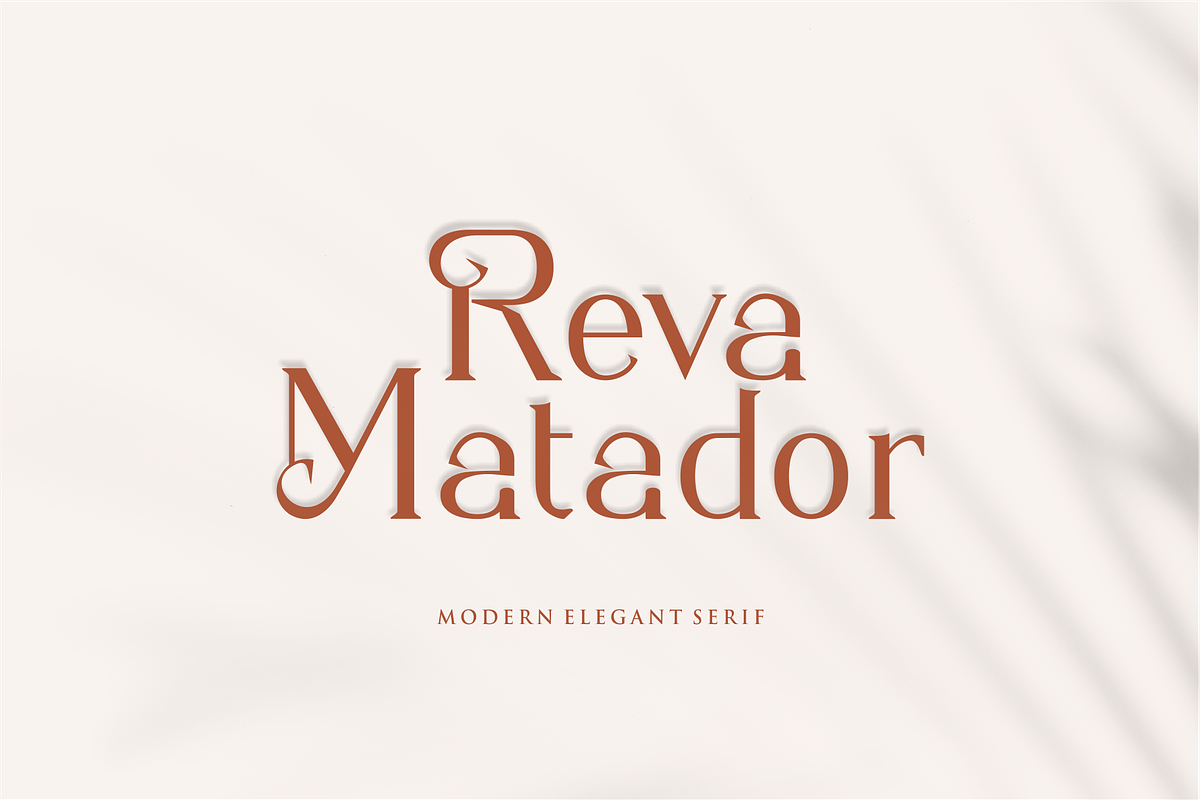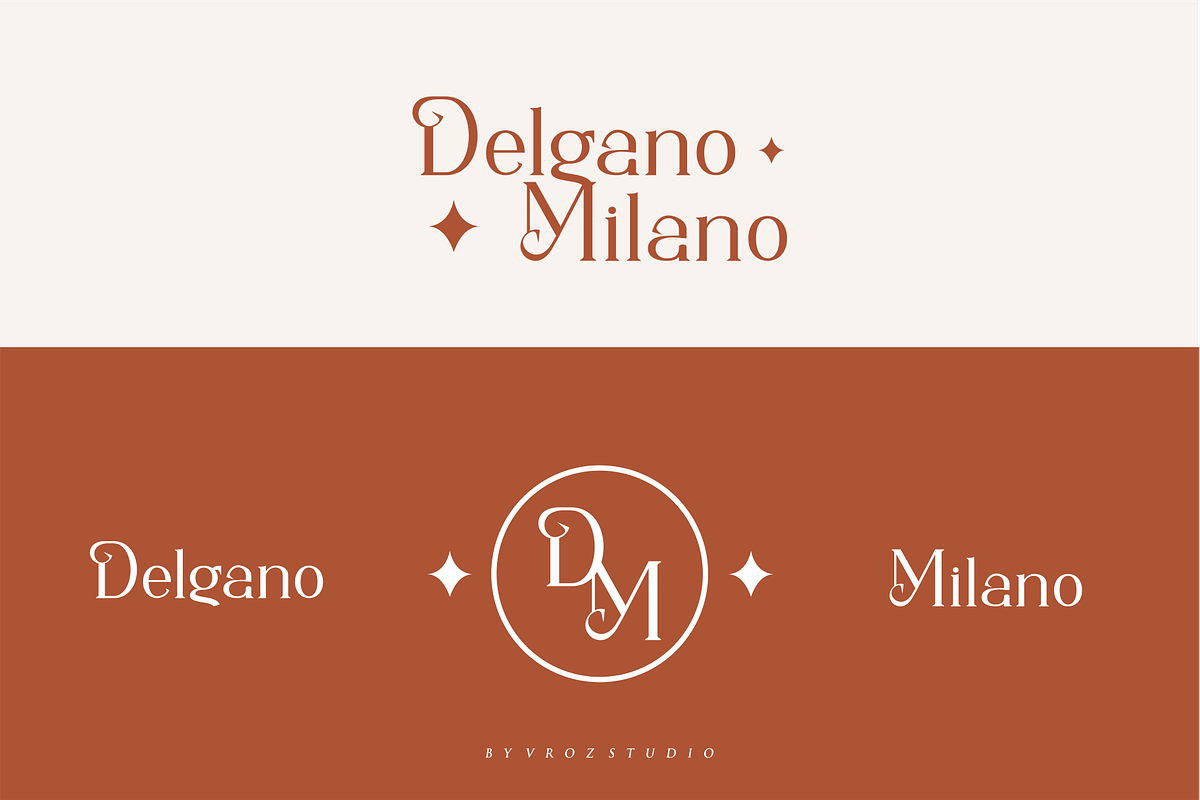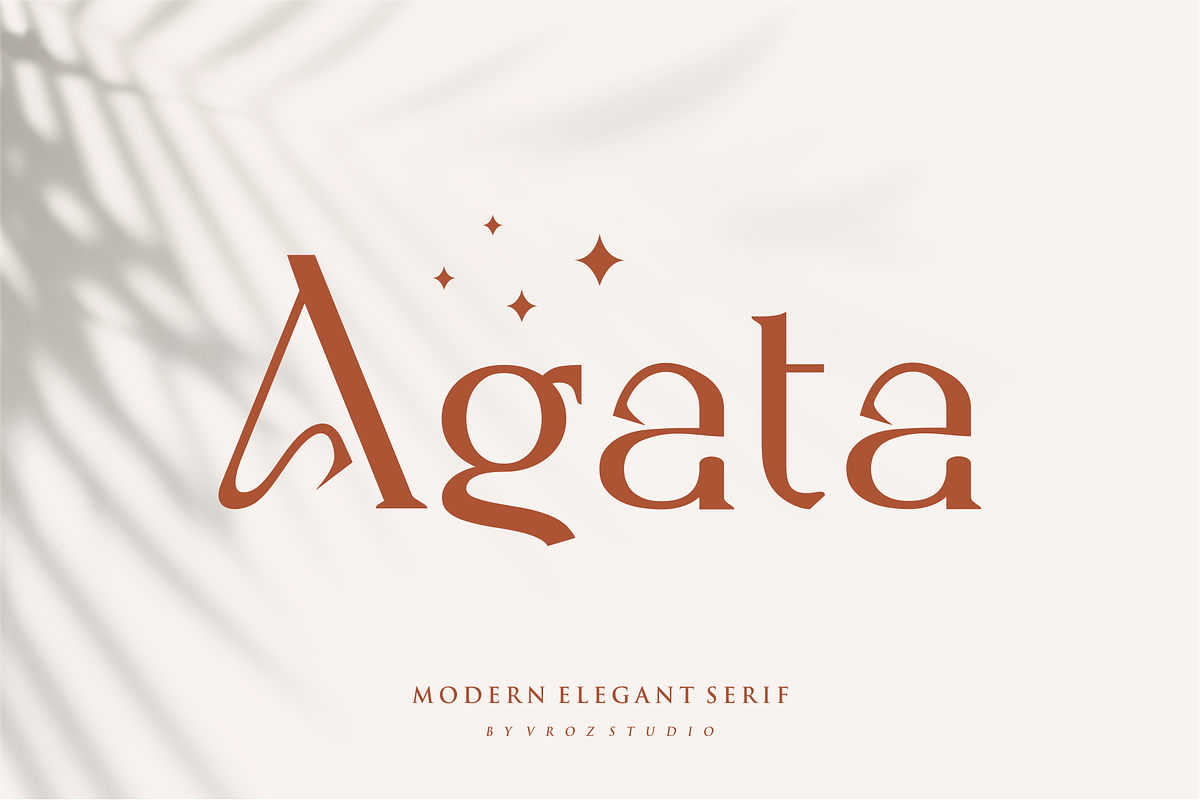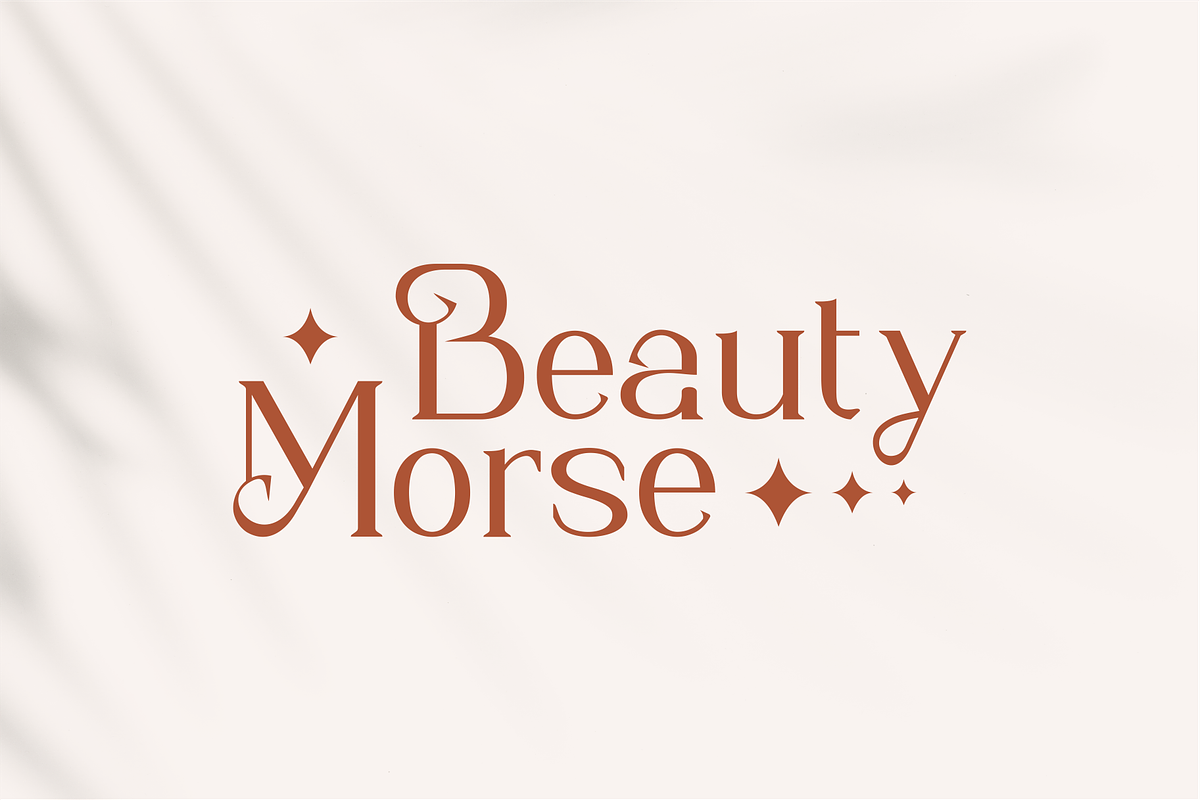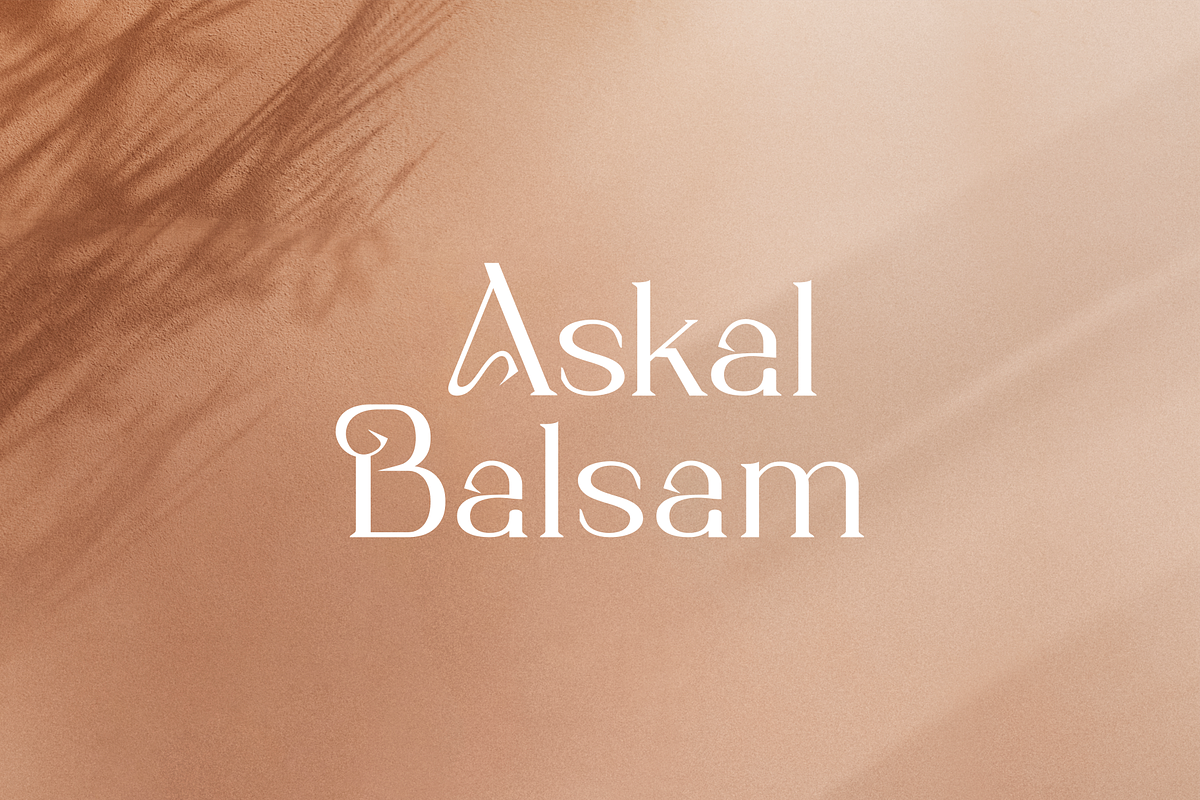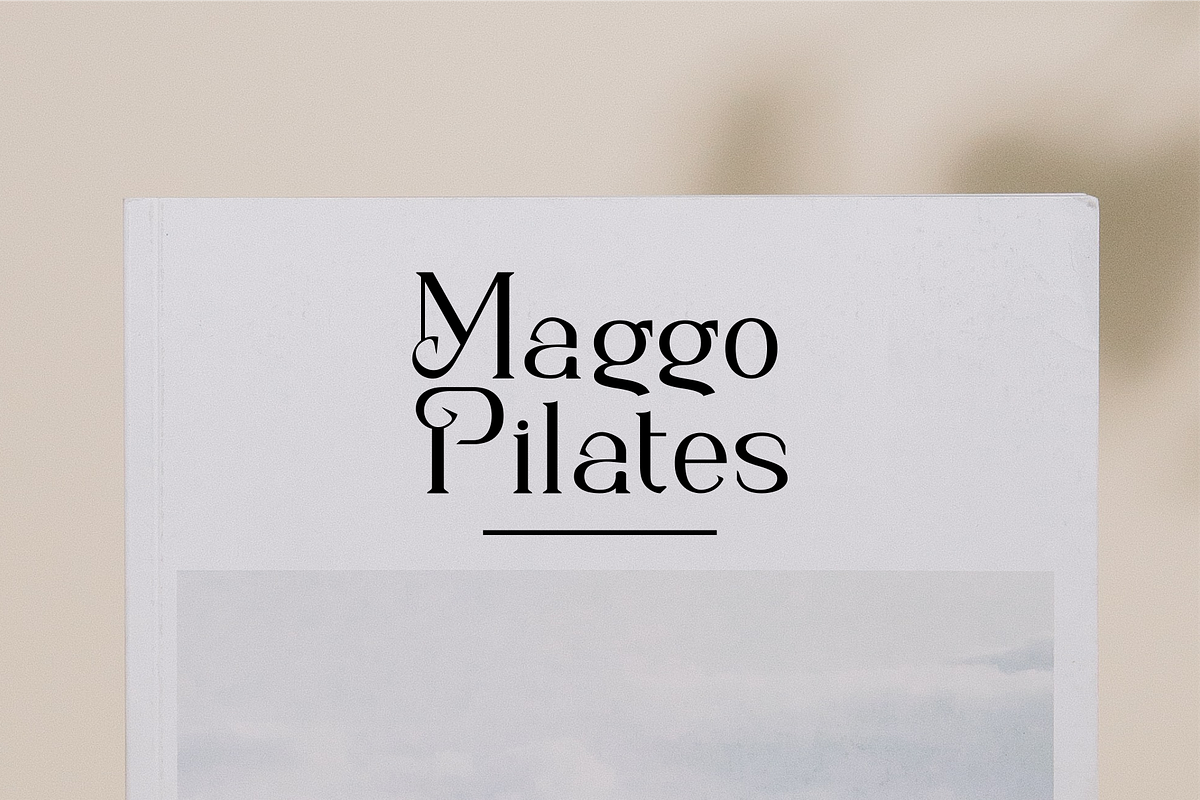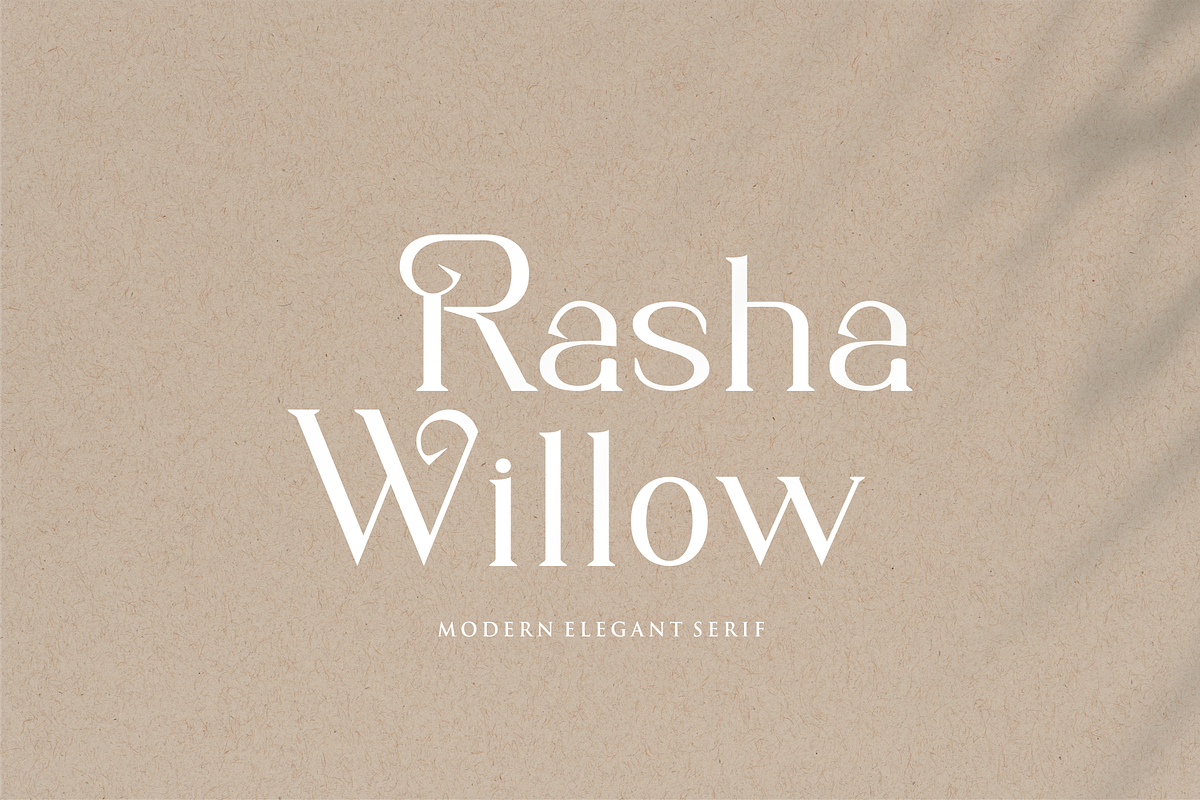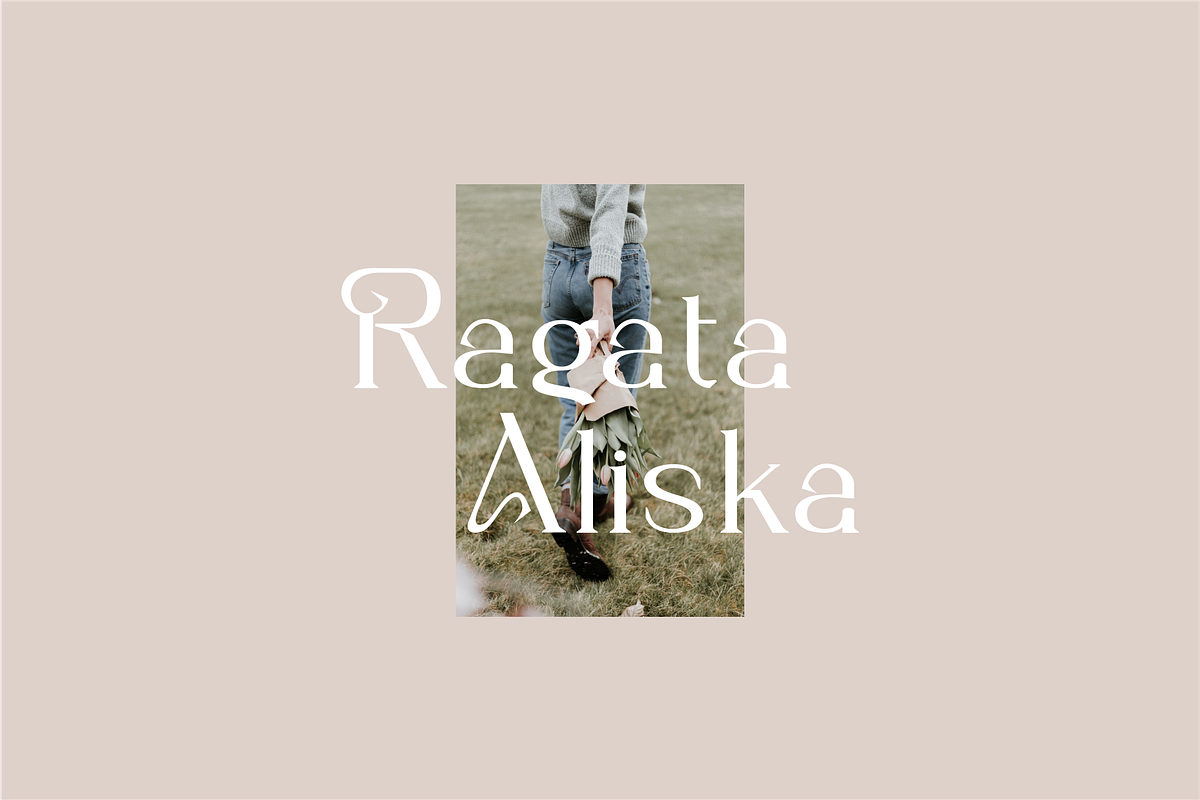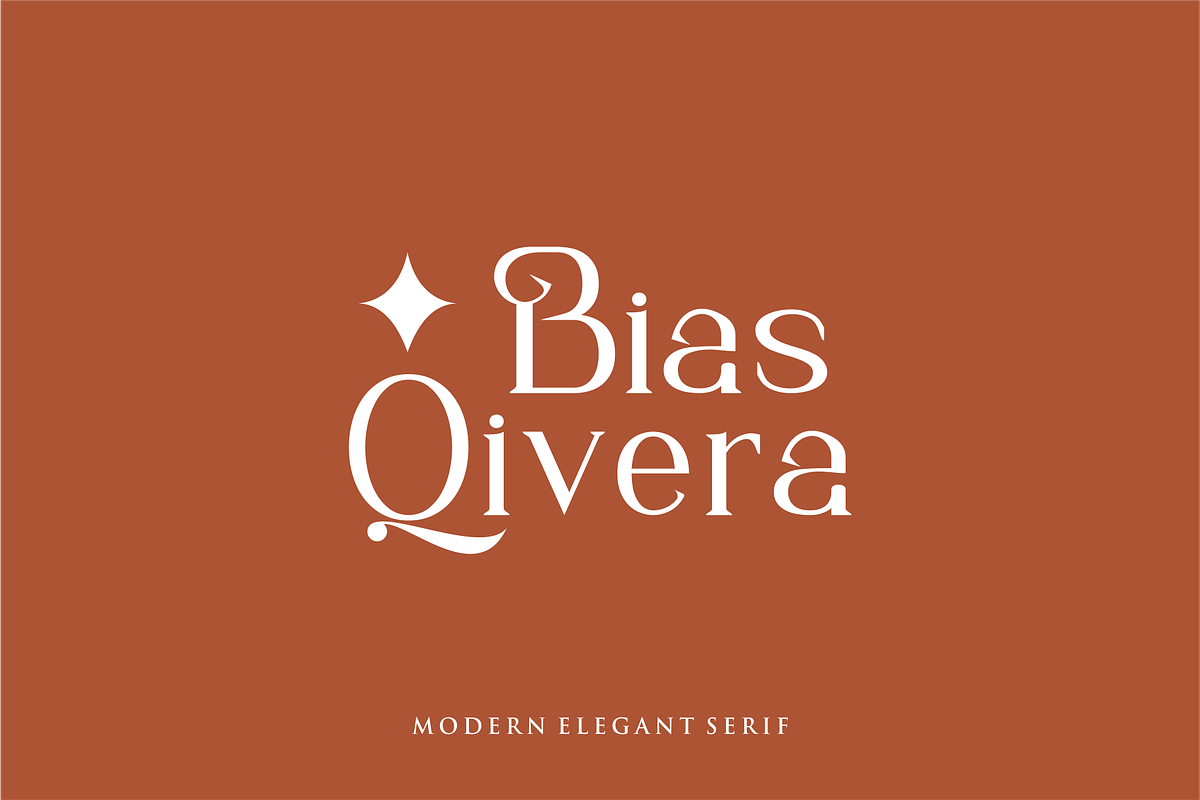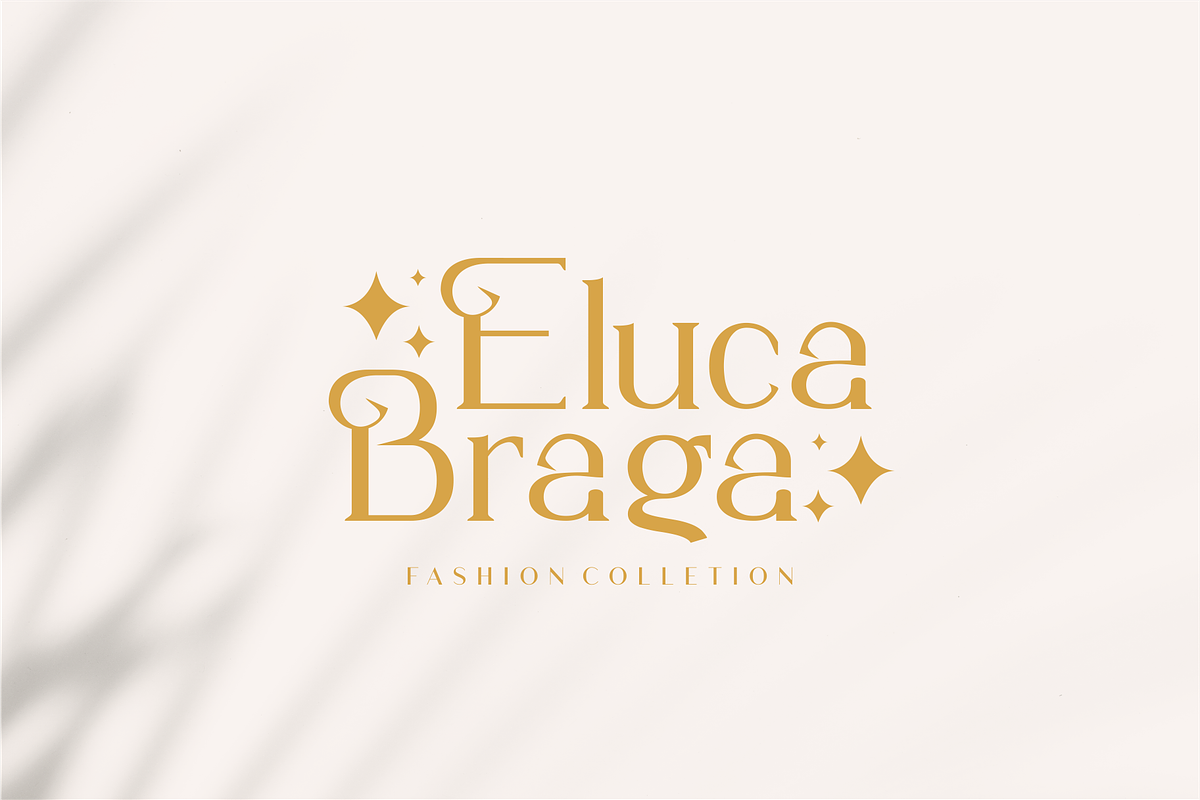
Agata - Modern Elegant Serif
Agata - Modern Elegant Serif Font will perfect for many project: fashion, magazines, logo, branding, photography, invitations, wedding invitation, quotes, blog header, poster, advertisements, postcard, book, websites, etc.